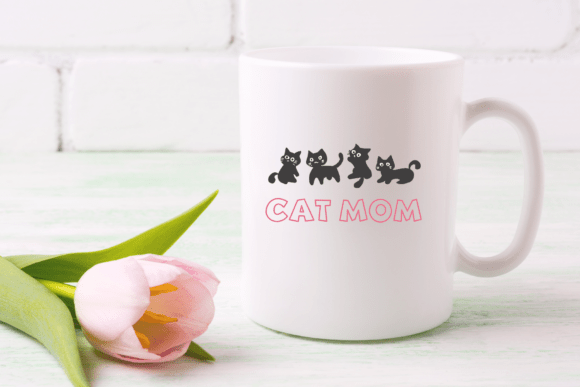
Hello Mama Font
Hello Mama is a fun and cheerful typeface. This font is designed to convey a cheerful and affectionate message, perfect for use on social media, invitations or other digital designs. With its expressive and letter style, this font adds playfulness and warmth to the design, creating a unique and interesting impression.